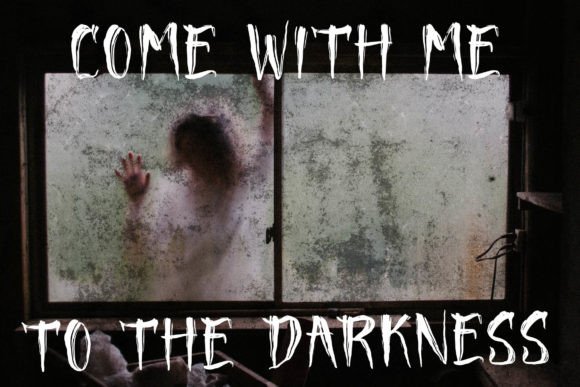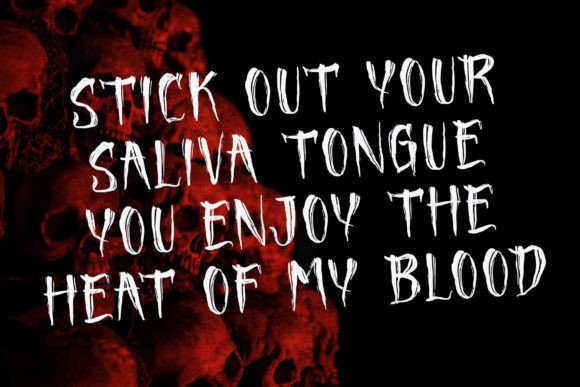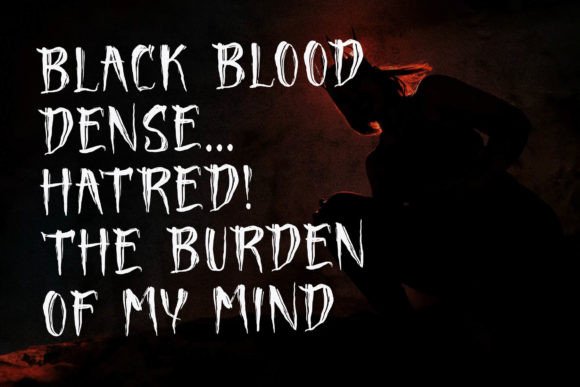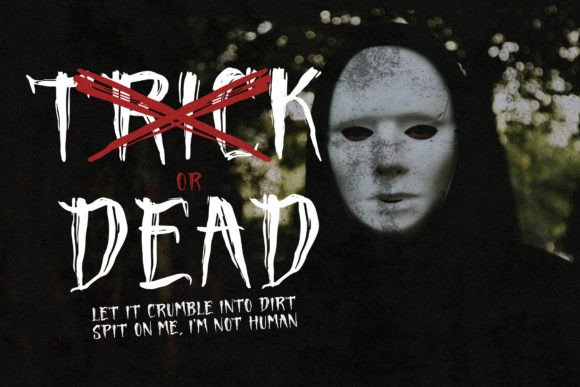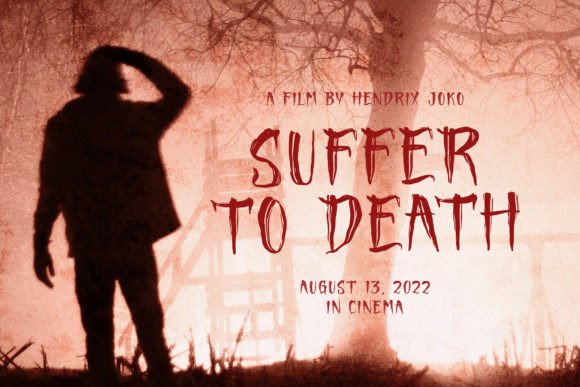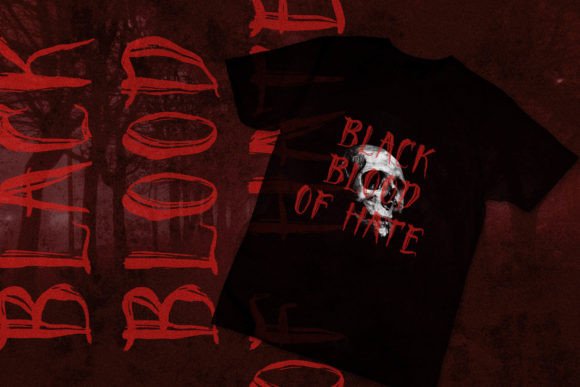
Introduction to Rusty Witches Font
Have you ever been stuck in a creative rut, staring at a blank page with no inspiration in sight? It’s a feeling we’ve all been there, and it’s precisely those moments when we need a spark of creativity to reignite our passion. For designers, finding the perfect font can be a game-changer. And that’s exactly what we’re about to dive into – the enchanting world of the Rusty Witches Font.
This high-quality display horror font is a treasure trove of creative possibilities, waiting to elevate your next project to new heights. Whether you’re working on a branding project, designing homeware, or crafting a spooky atmosphere for your photography, the Rusty Witches Font is sure to cast a spell of intrigue.
Key Features of Rusty Witches Font
- High-quality, unique design with a distressed, vintage aesthetic, perfect for creative projects.
- Rustic, hand-drawn style with intricate details and textures, adding a touch of personality to any design.
Honest Review: Rusty Witches Font
I recently came across the Rusty Witches Font while searching for a unique design resource for a creative project. The font’s quirky, hand-drawn style immediately caught my eye, and I was excited to dive in and see what it had to offer.
- ✨ High-quality design: The Rusty Witches Font is well-crafted and exhibits a level of detail that’s impressive for a free download.
- ✨ Unique style: The font’s hand-drawn aesthetic is perfect for projects that need a touch of whimsy and personality.
- ⚠️ Limited character set: The font’s character set is relatively small, which may be a issue for projects that require a wide range of characters.
- ⚠️ Not ideal for large text: The font’s design is best suited for small to medium-sized text, as larger text sizes can make the font appear pixelated.
Overall, I’m impressed with the Rusty Witches Font, and I would definitely recommend it for creative projects that need a unique, high-quality design resource.
The Rusty Witches Font is perfect for various design projects, including wedding invitations, birthday party decorations, and social media graphics. You can also use the font to create a cohesive brand identity for your business or organization.